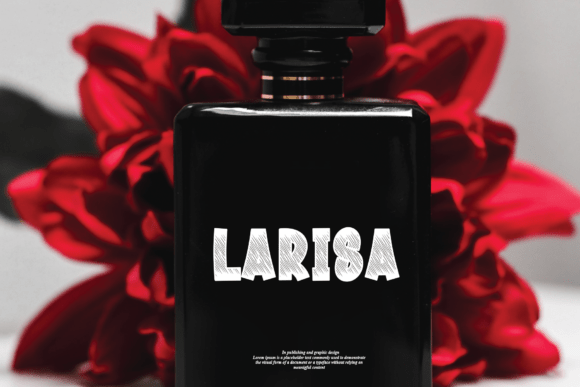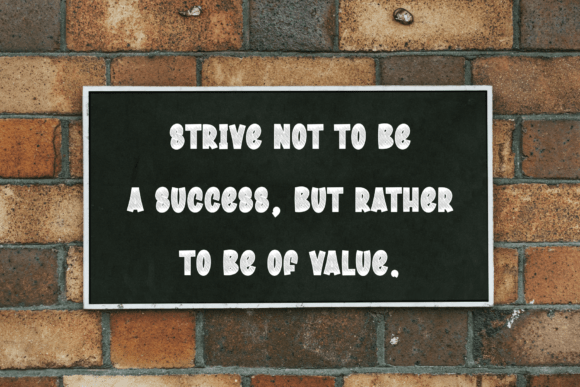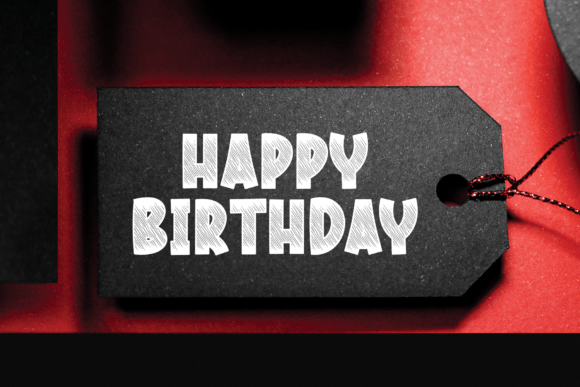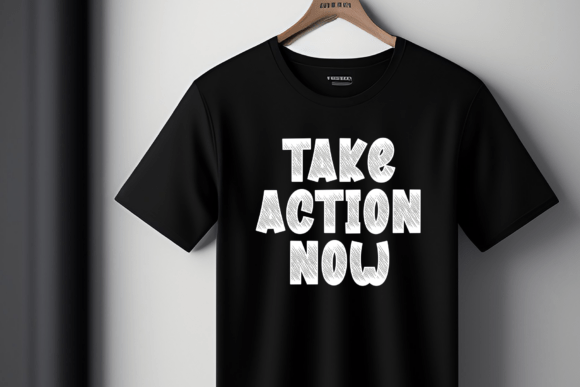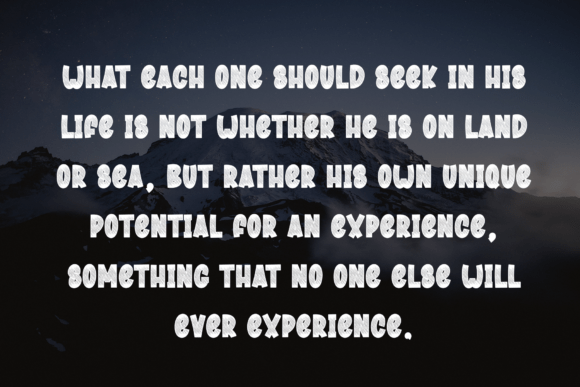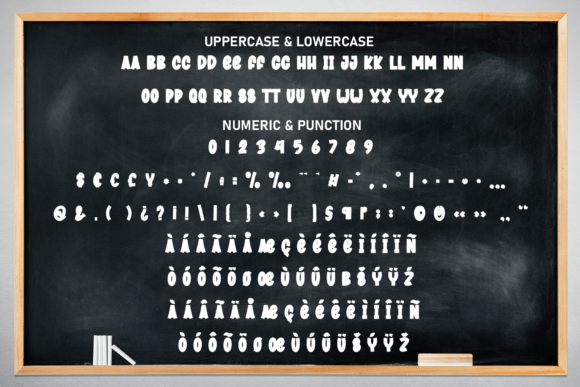
The Perfect Blend of Casual and Style: Unleashing the Magic of Chalkboard Font
You know that moment when you’re brainstorming ideas for a project, and you stumble upon the perfect font that sets the tone for the entire design? For many designers, that moment is when they discover the Chalkboard Font. This charming display font has been a favorite among creatives for its unique blend of modern simplicity and playful approachability.
With its clean shapes, soft edges, and well-balanced letterforms, the Chalkboard Font is the perfect addition to any project. Whether you’re designing posters, branding, packaging, or social media graphics, this font adds a fresh and friendly touch that’s sure to grab attention. Its versatility and eye-catching appeal make it a valuable asset for designers, delivering both readability and personality to any project.
Key Features of Chalkboard Font
- Font Styles: Chalkboard Font comes in several styles, including Chalkboard, Chalkboard SE, Chalkboard One, and others, each with its unique characteristics.
- Unique Characteristics: The font’s distressed, hand-drawn look and feel gives it a unique, vintage aesthetic that adds a touch of nostalgia and whimsy to designs.
Chalkboard Font Review
Overall, I think Chalkboard Font is a solid choice for designers looking for a fun, playful font. It’s perfect for projects that need a vintage or rustic touch. ✨
- Easy to read, even at smaller font sizes
- Works well for headings and titles
- Great for creating a sense of nostalgia or retro feel
- Comes in a variety of weights and styles
However, there are some limitations to keep in mind:
- Not ideal for large blocks of text, as it can be difficult to read
- May not be the best choice for professional or formal projects
- Can be a bit too playful or gimmicky for some designs
- May not be fully legible on certain digital devices or screens
Overall, I think Chalkboard Font is a great addition to any designer’s toolkit. While it may not be the best choice for every project, it’s a fun and versatile font that can add a lot of character to the right design. ⚠️ Just be mindful of its limitations and use it thoughtfully.
Chalkboard Font is ideal for creating a vintage or retro look for your designs. Use it for:
Headlines, titles, and headings
Signs, posters, and flyers
Invitations, menus, and other event materials
Q: What are the technical details of Chalkboard Font?